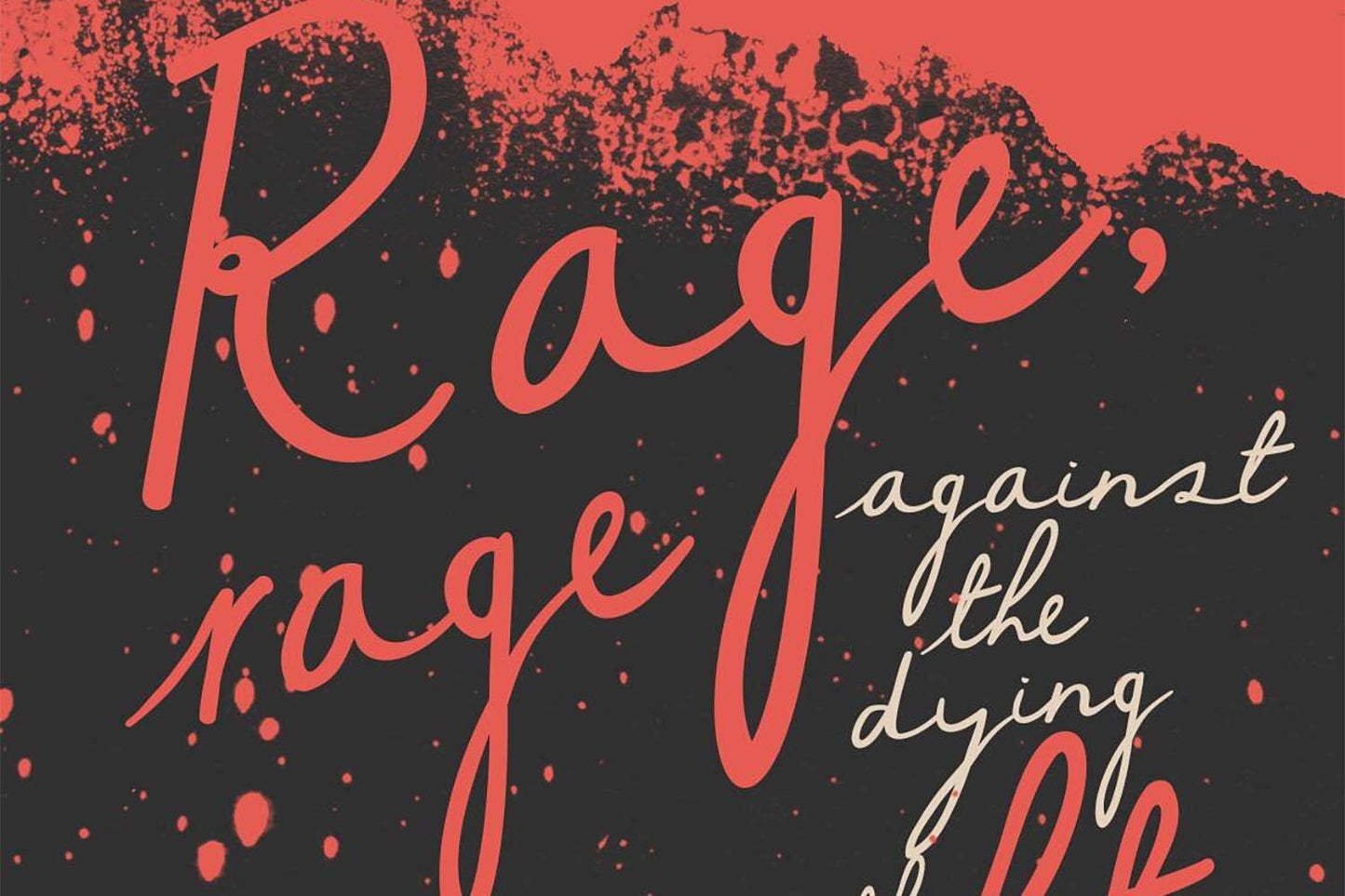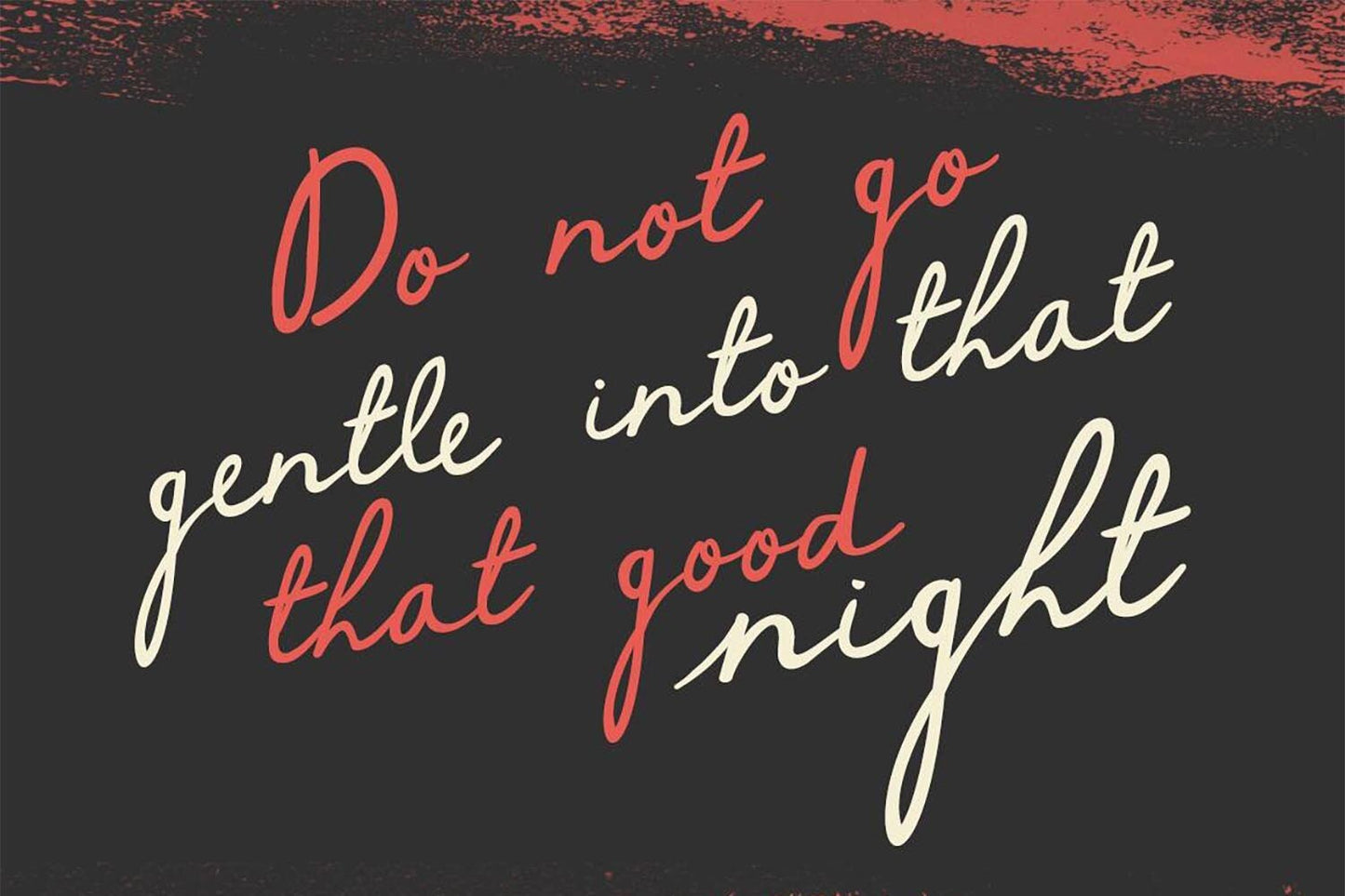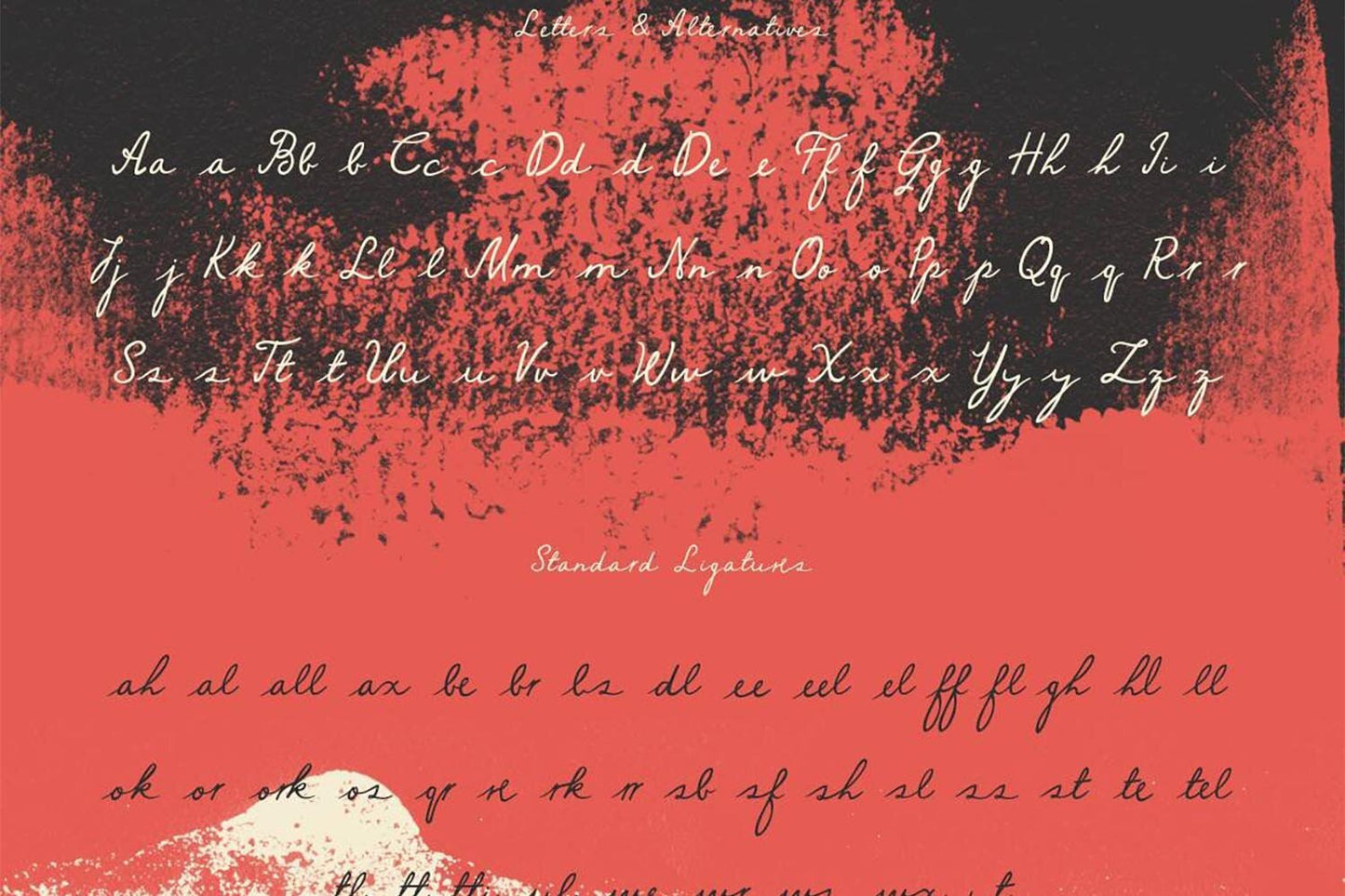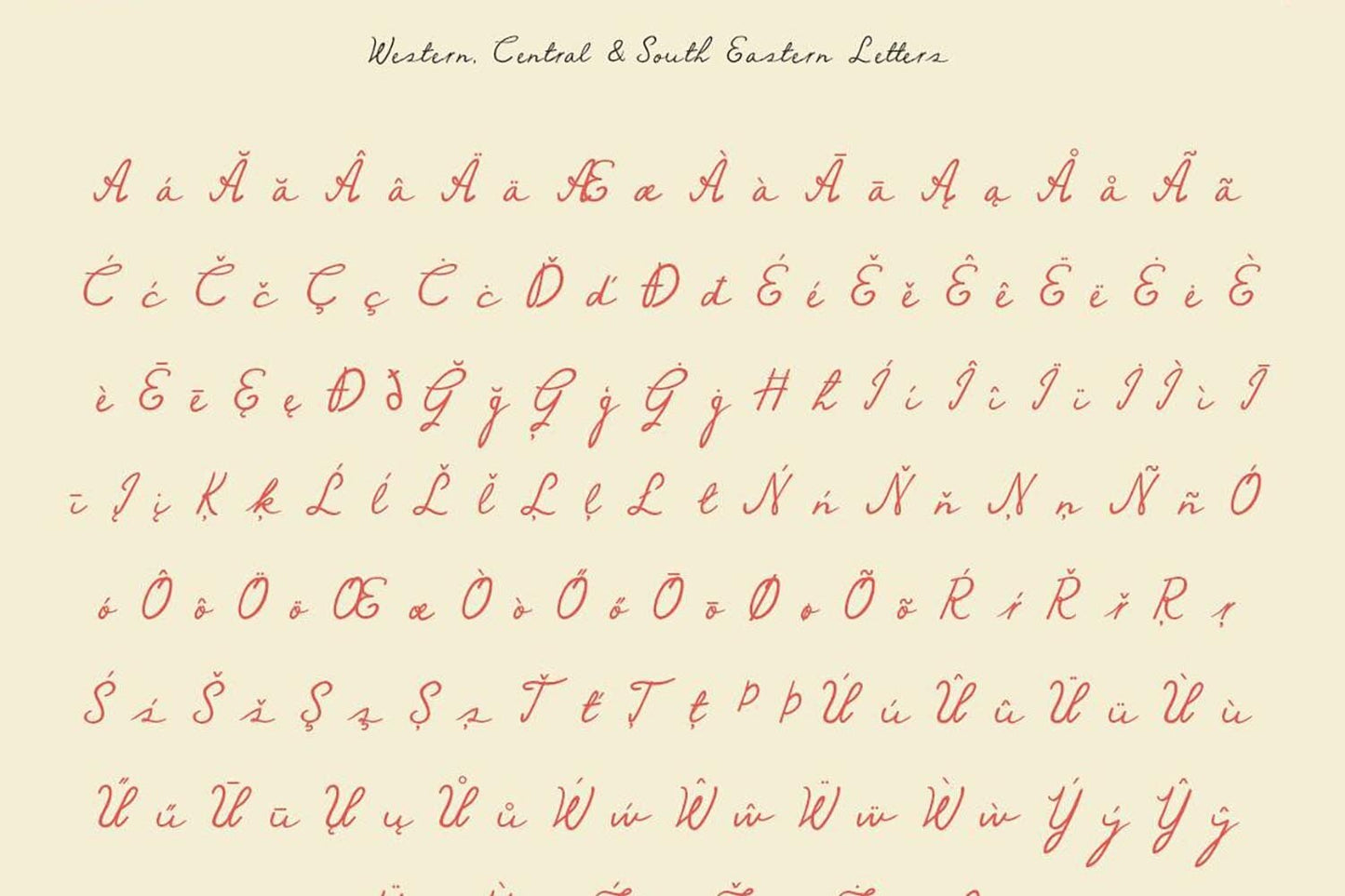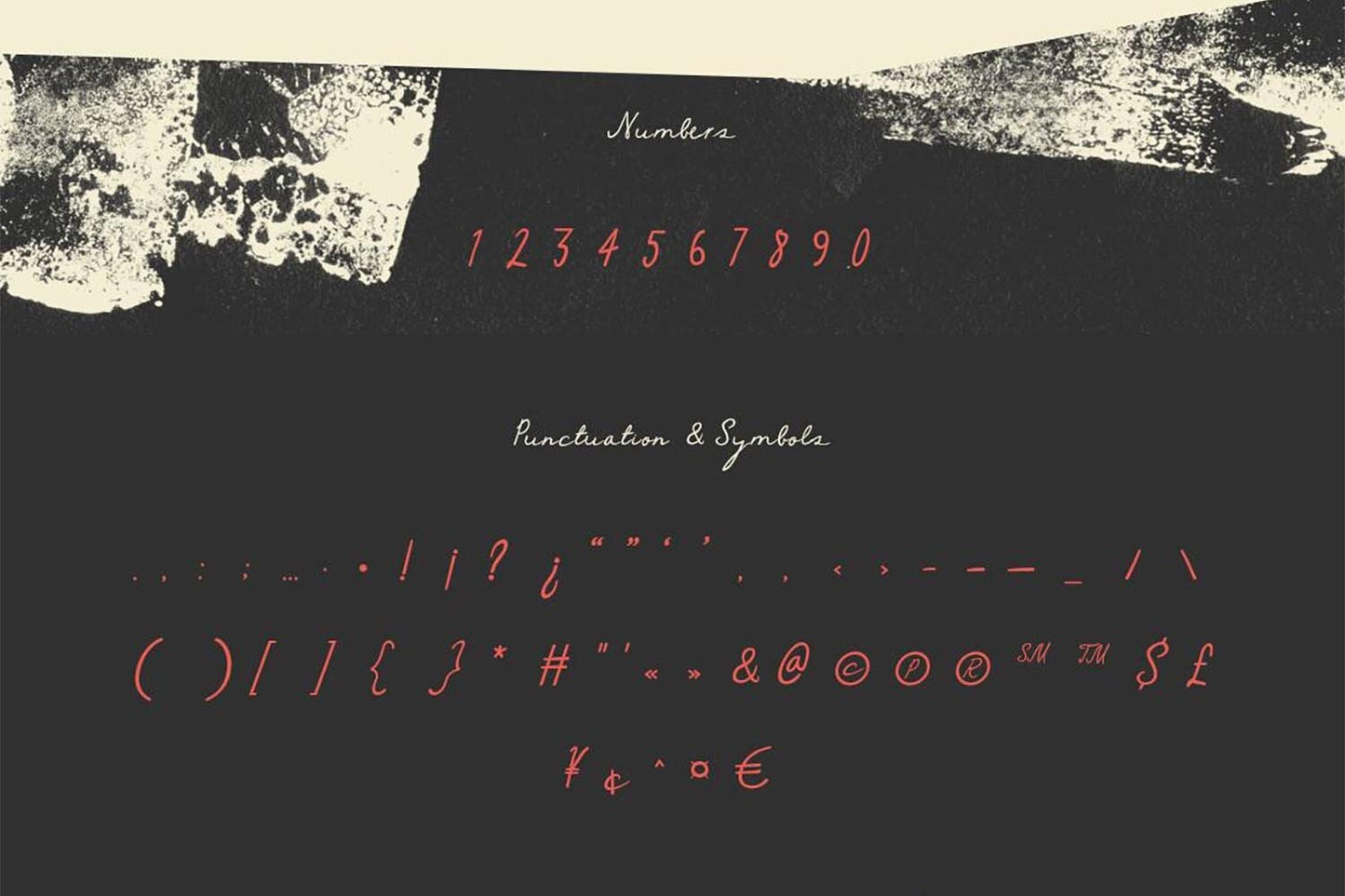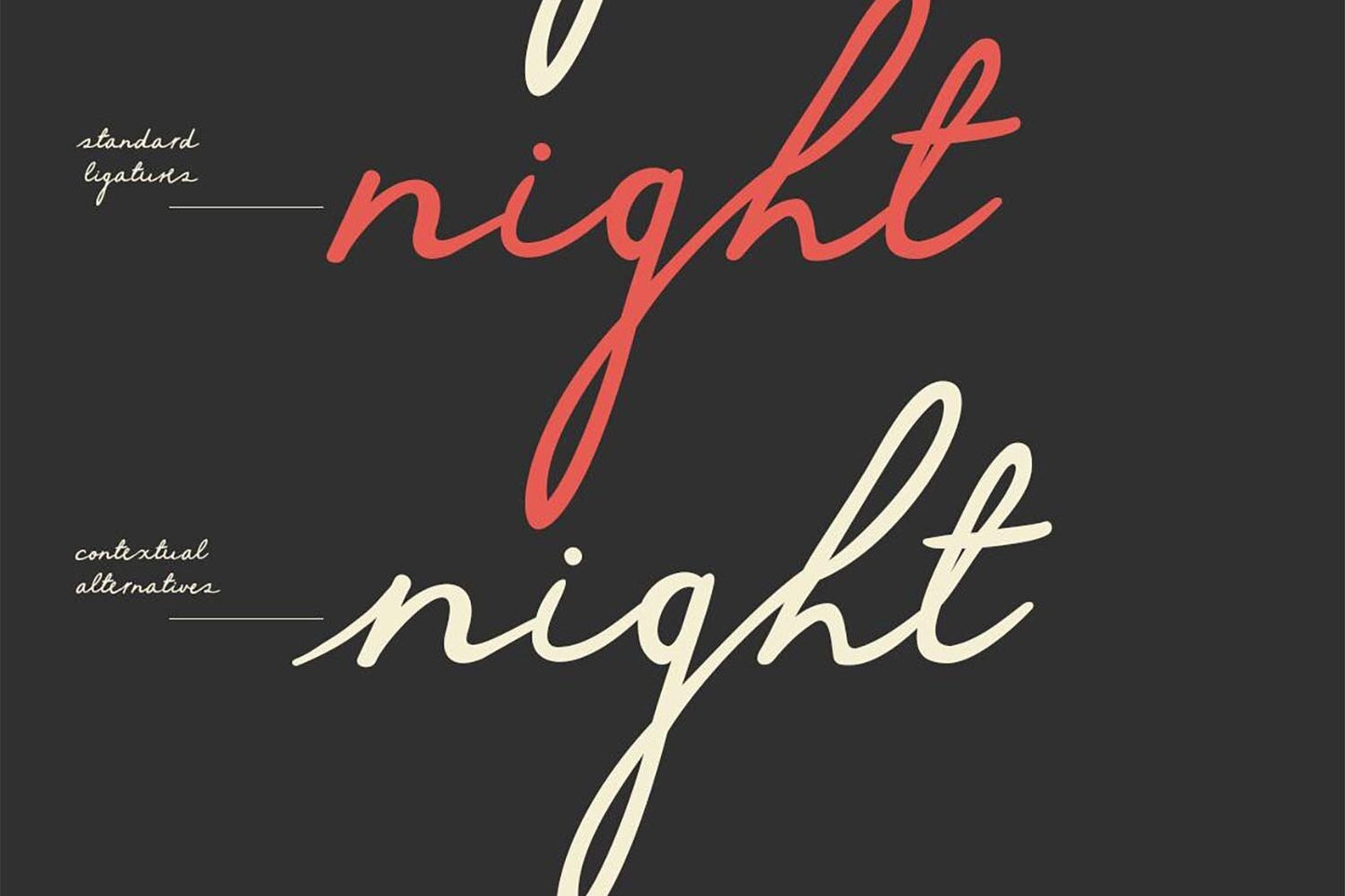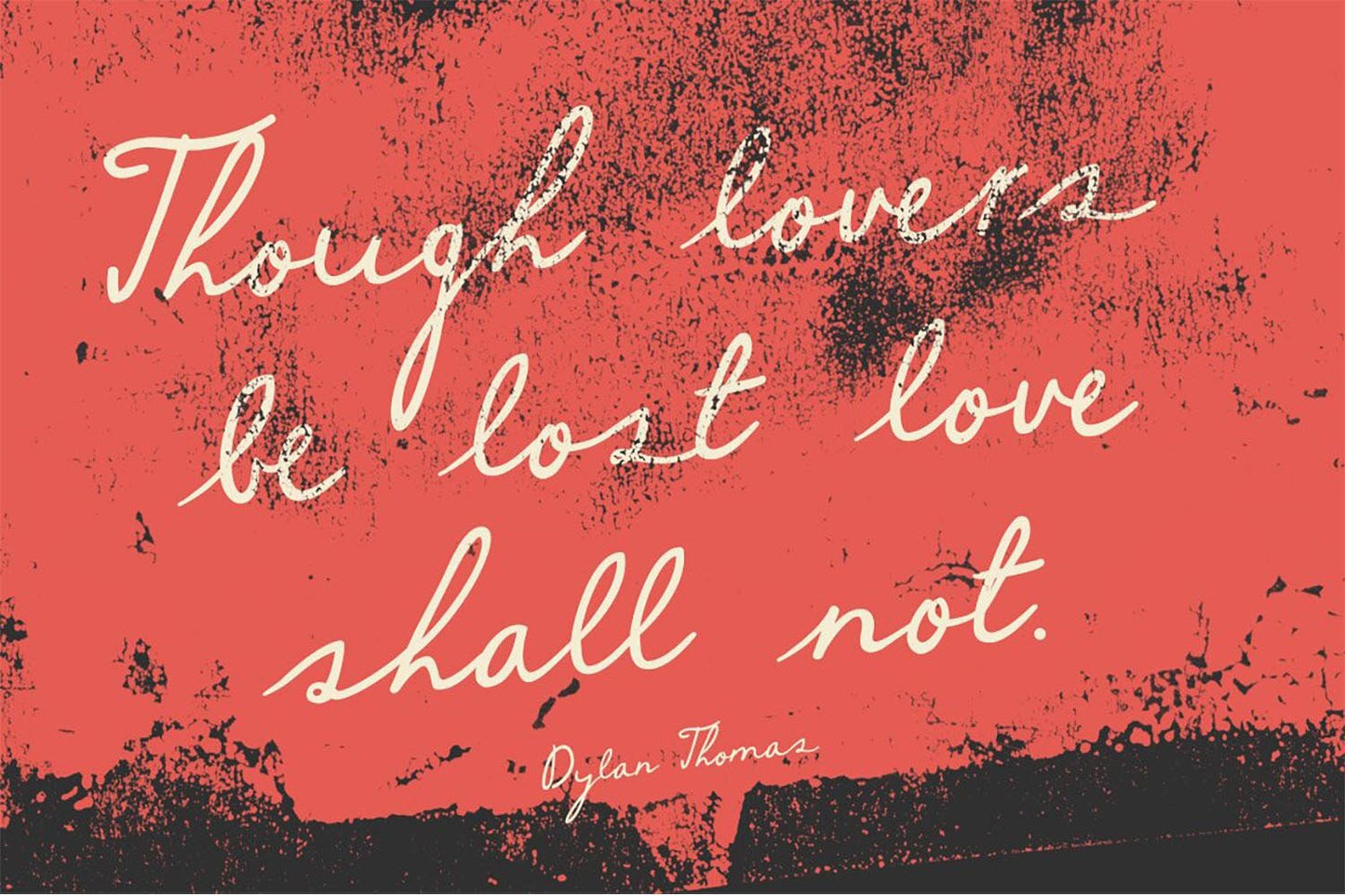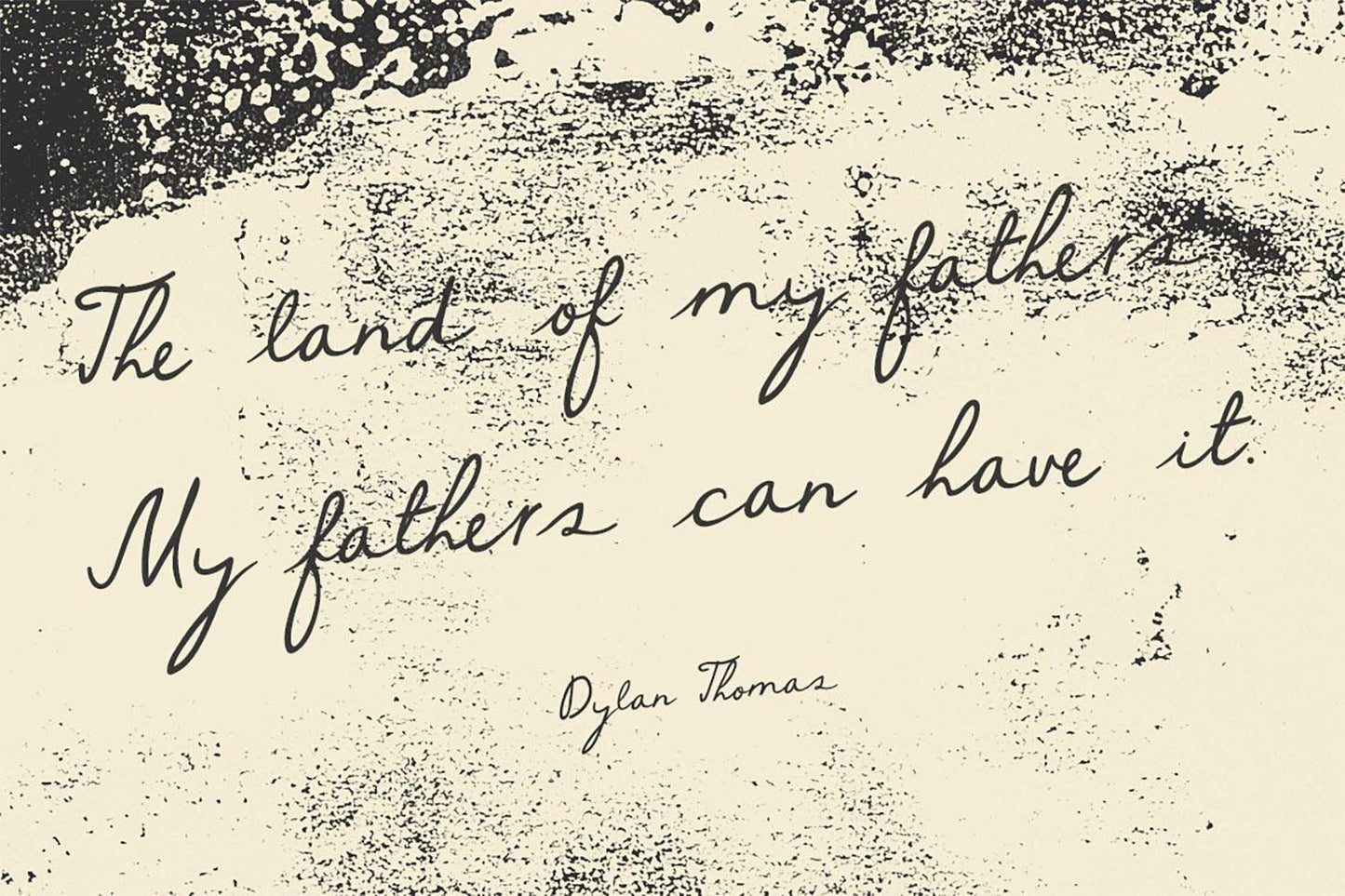
Gently Script
Gently Script is a relaxed, informal handwriting font designed to be easy on the eye, featuring a clean and simple style with a few creative twists.
The charm of hand-drawn type has always appealed to me. It's personal, like a fingerprint; everyone has their own style, and I love that diversity.
Gently Script aims for a laid-back look and feel, offering a simple, clean handwriting style with some slightly decorative capital letters. It's not perfect, but those quirks and foibles give it character.
This font is versatile, and suitable for logotypes, packaging, t-shirts, posters, invitations, and personal design projects.
Gently Script comes in one style, "regular," and includes numerous ligatures and contextual alternatives. Be sure to enable these features in your application for the full script effect.
If Gently Script was a celebrity
If Gently Script were a celebrity, it would be Dylan Thomas. Just as Dylan Thomas is celebrated for his evocative and lyrical writing, the Gently Script typeface would be recognized for its graceful and flowing letterforms—both capable of conveying a sense of romance and sophistication.